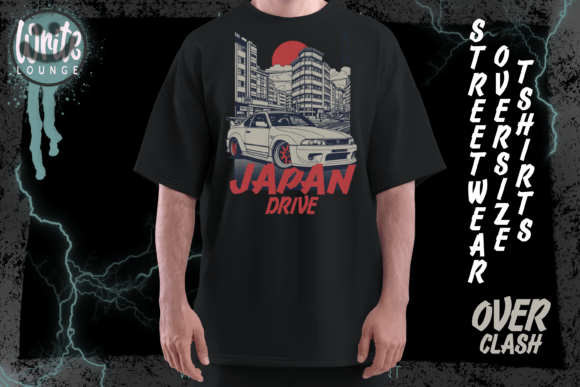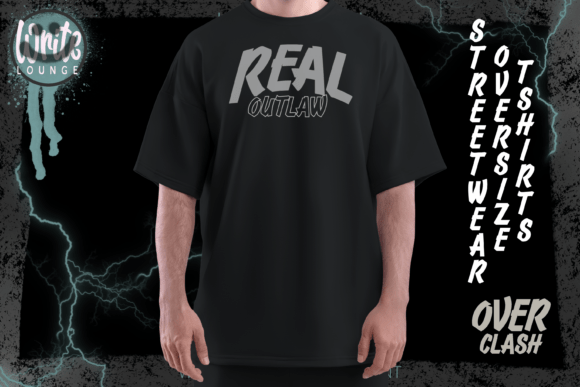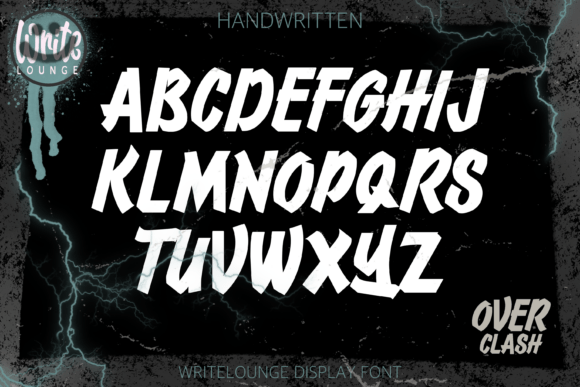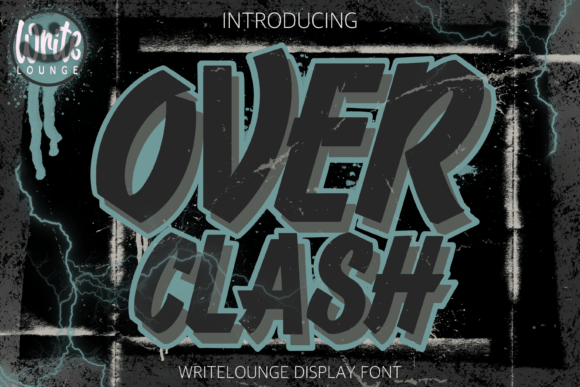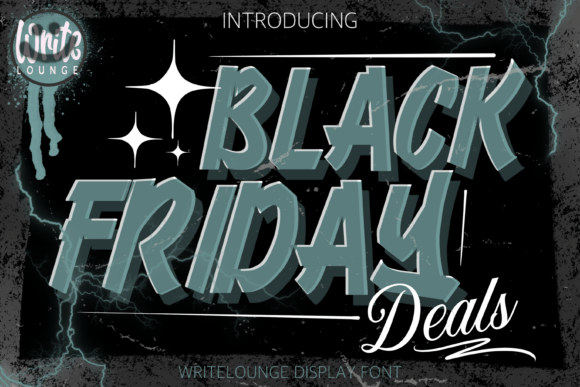
Introduction to Overclash Font
Have you ever stared at a blank canvas, struggling to find the perfect font to bring your creative project to life? You’ve poured your heart and soul into the design, but something’s missing – a spark, a dash of personality, a raw energy that sets it apart from the rest. That’s where the Overclash Font comes in – a dynamic, hand-drawn brush script font that’s about to revolutionize your design game.
As a valuable resource for designers, the Overclash Font is more than just a pretty face. With its rebellious style and powerful strokes, it adds an untamed, wild aesthetic to any design, making it perfect for creative projects that need a bold statement. Whether you’re working on a high-quality design for a client or experimenting with a free download for a personal project, this font is sure to deliver.
Key Features of Overclash Font
- Includes 4 styles, each with a distinct character and flair, providing users with a range of creative options.
Honest Review: Overclash Font
I recently had the chance to work with the Overclash Font, and I must say it’s a fantastic design resource for any creative project. This high-quality font is perfect for adding a touch of sophistication to your designs.
What works well: ✨ The Overclash Font has a transparent background, making it easy to customize and use in various design contexts. The font is also available for free download, which is a huge plus for designers on a budget. The design is sleek and modern, making it perfect for a wide range of creative projects.
The font is highly versatile and can be used for headings, titles, and even body text. The character set is comprehensive, with a wide range of characters and symbols to choose from.
- Sleek and modern look
- Comprehensive character set
Limitations: ⚠️ While the Overclash Font is an excellent choice for many design projects, it may not be suitable for designs that require a more traditional or vintage look. Additionally, the font may not be as effective at very small sizes.
Overall impression: I was thoroughly impressed with the Overclash Font and would highly recommend it to designers looking for a high-quality, versatile font for their creative projects.
The Overclash Font is a high-quality design resource that offers a unique and creative touch to your projects. With its transparent background, it’s perfect for use in various design applications.
Tips for Getting the Most Out of Overclash Font
- Combine the Overclash Font with other design elements to create a cohesive visual identity.
- Use the transparent background to create a sense of depth and dimension in your designs.
- Marketing materials and advertisements
- Graphic design and visual identity